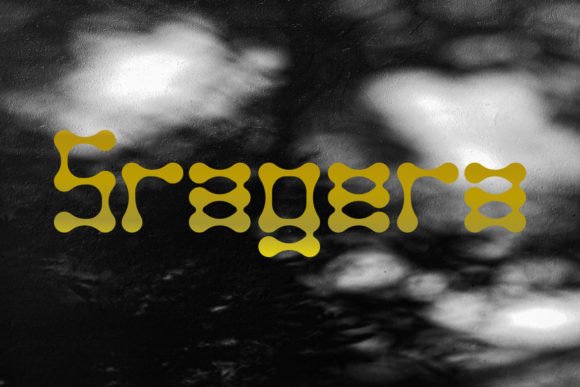
Indulge in the whimsical world of Sragera Font, where creativity blooms and imagination takes flight! This captivating display font, a masterpiece by ffeeaarr, enchants with its delightful curves and playful spirit.
Sragera beckons you to embrace its versatility, empowering you to craft stunning titles that dance across the page, leaving an unforgettable mark on your audience. Picture your posters adorned with its charming curves, inviting readers to explore worlds unknown. Unleash your literary genius with book covers that whisper stories through Sragera's enchanting embrace. Let magazine headers shimmer with its brilliance, drawing attention to articles that ignite curiosity and inspire thought.
The possibilities extend beyond print, as Sragera graces product packaging with its effervescent charm. Witness your creations transform into objects of desire, carrying your message to the world with undeniable flair. But Sragera's magic knows no bounds. It transforms ordinary into extraordinary, inviting you to unleash your creativity in countless other realms.
With Sragera Font, you hold the key to unlocking a world of boundless expression. Its enchanting curves ignite inspiration, propelling your designs to new heights. Embrace the power of Sragera and let your imagination soar!